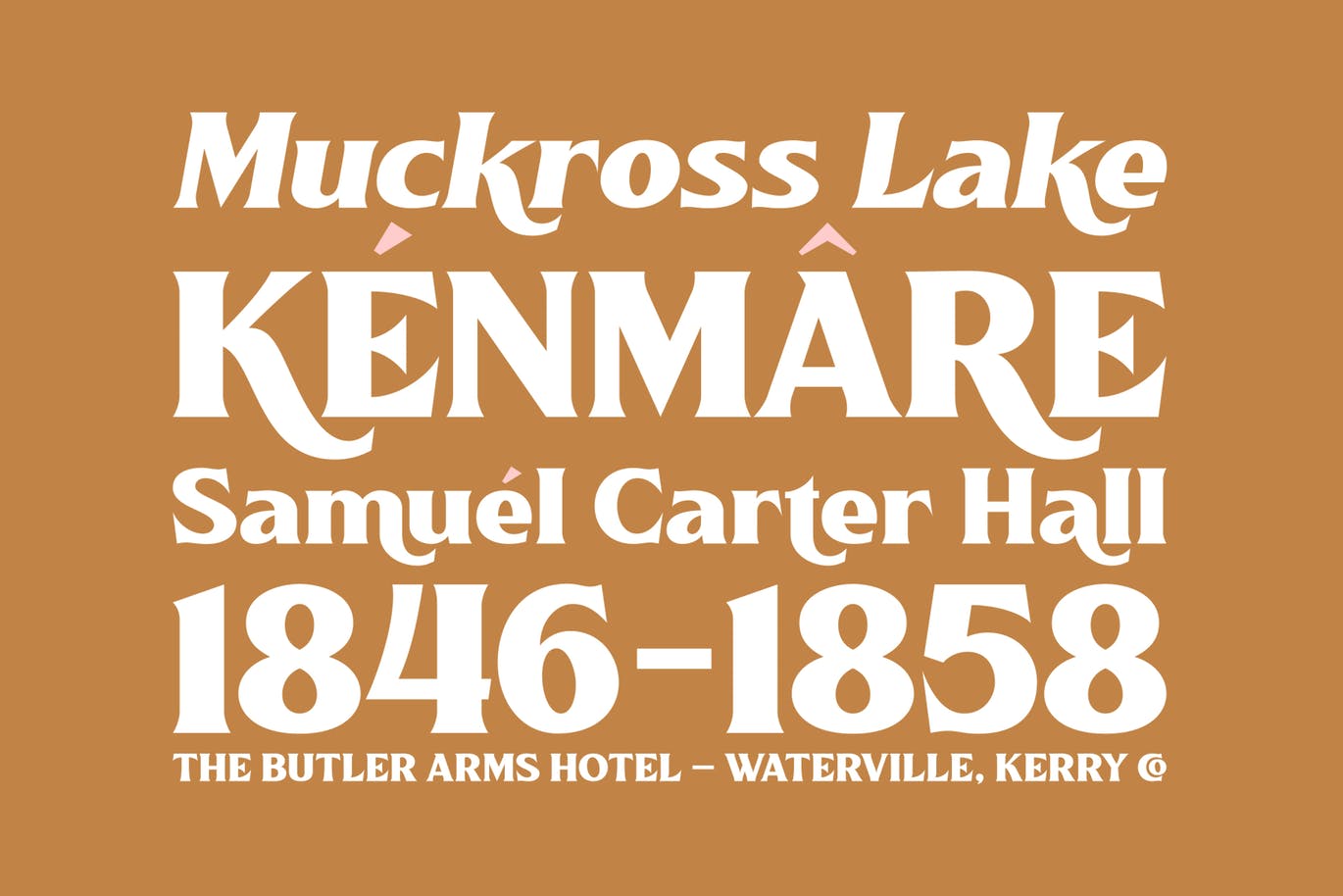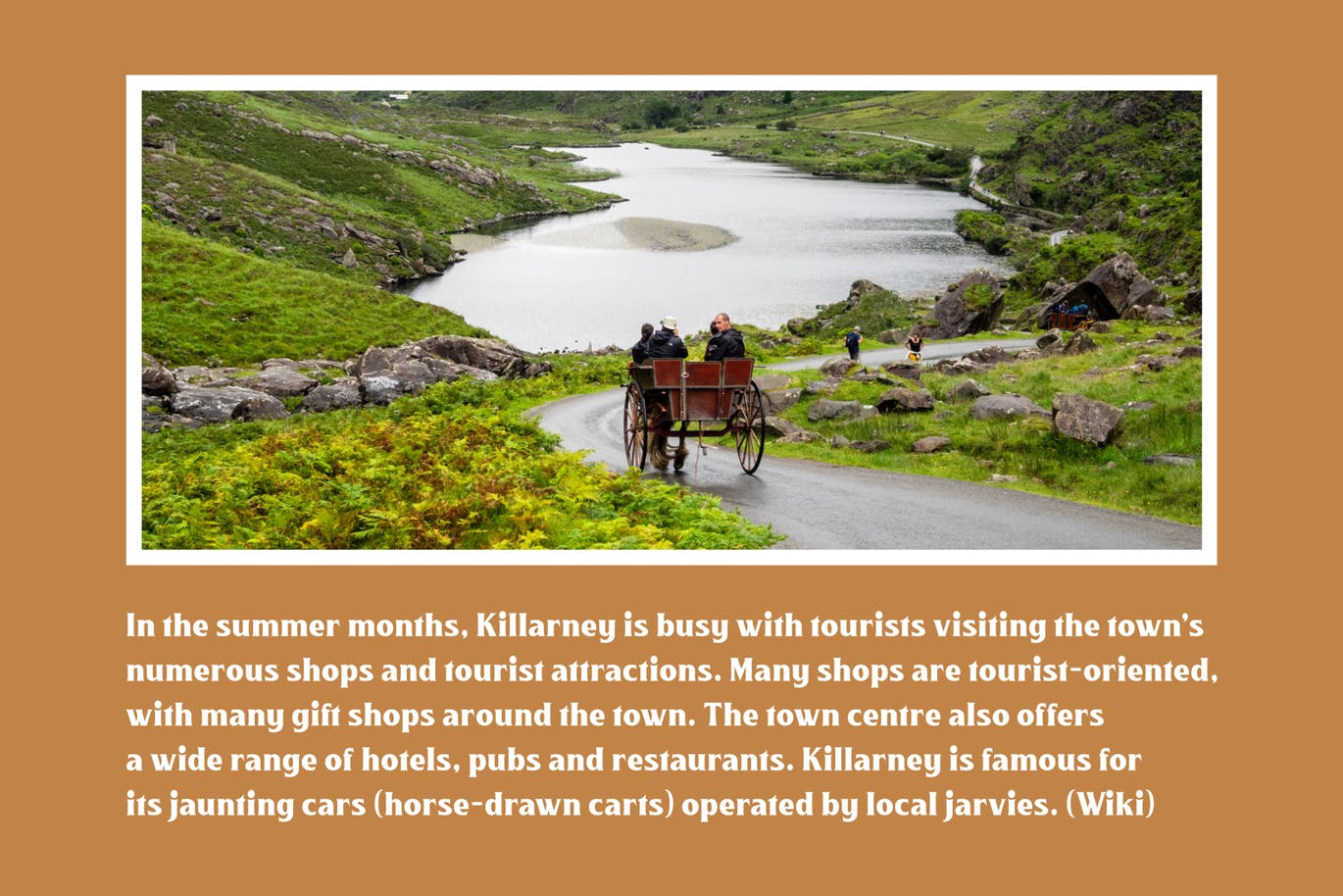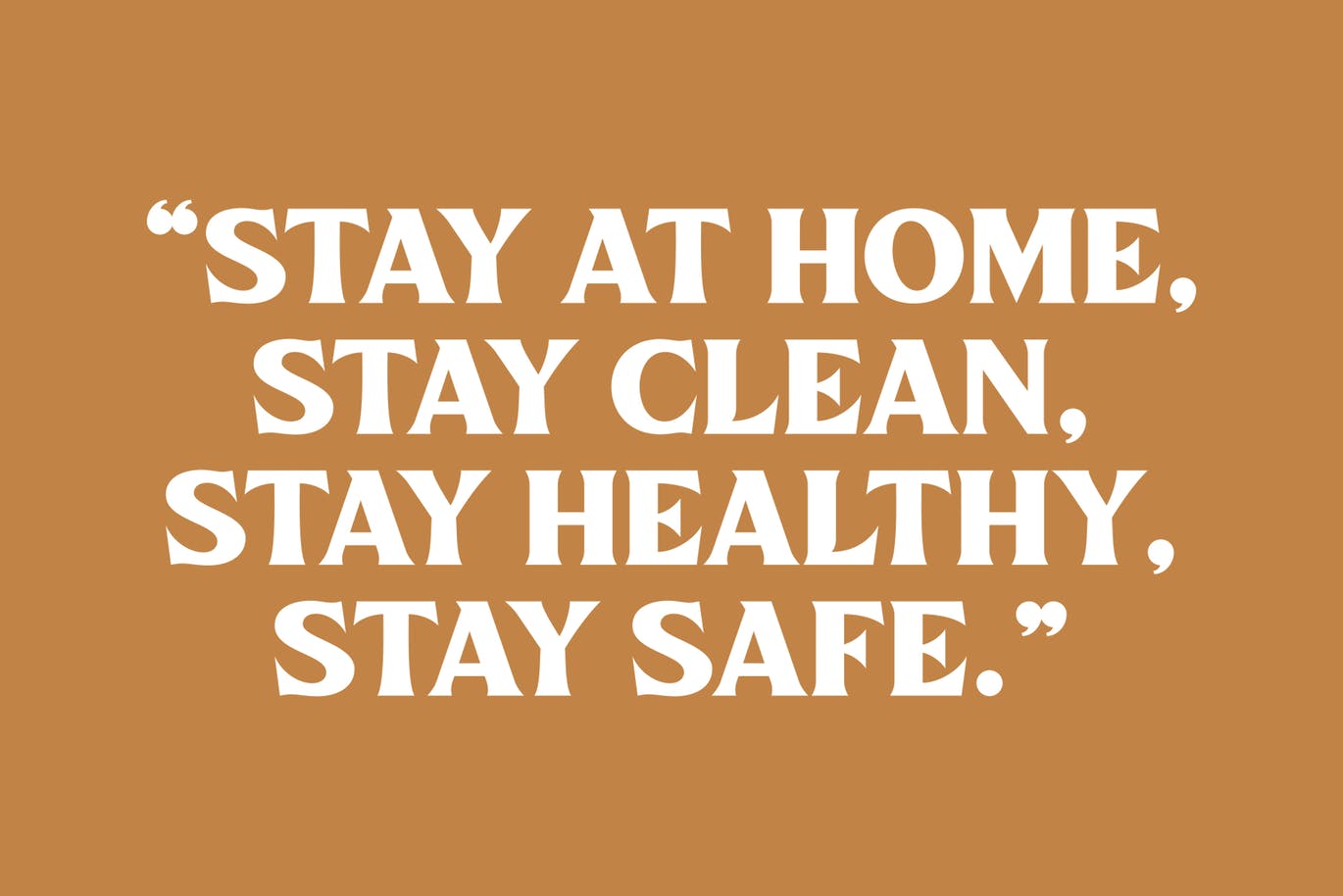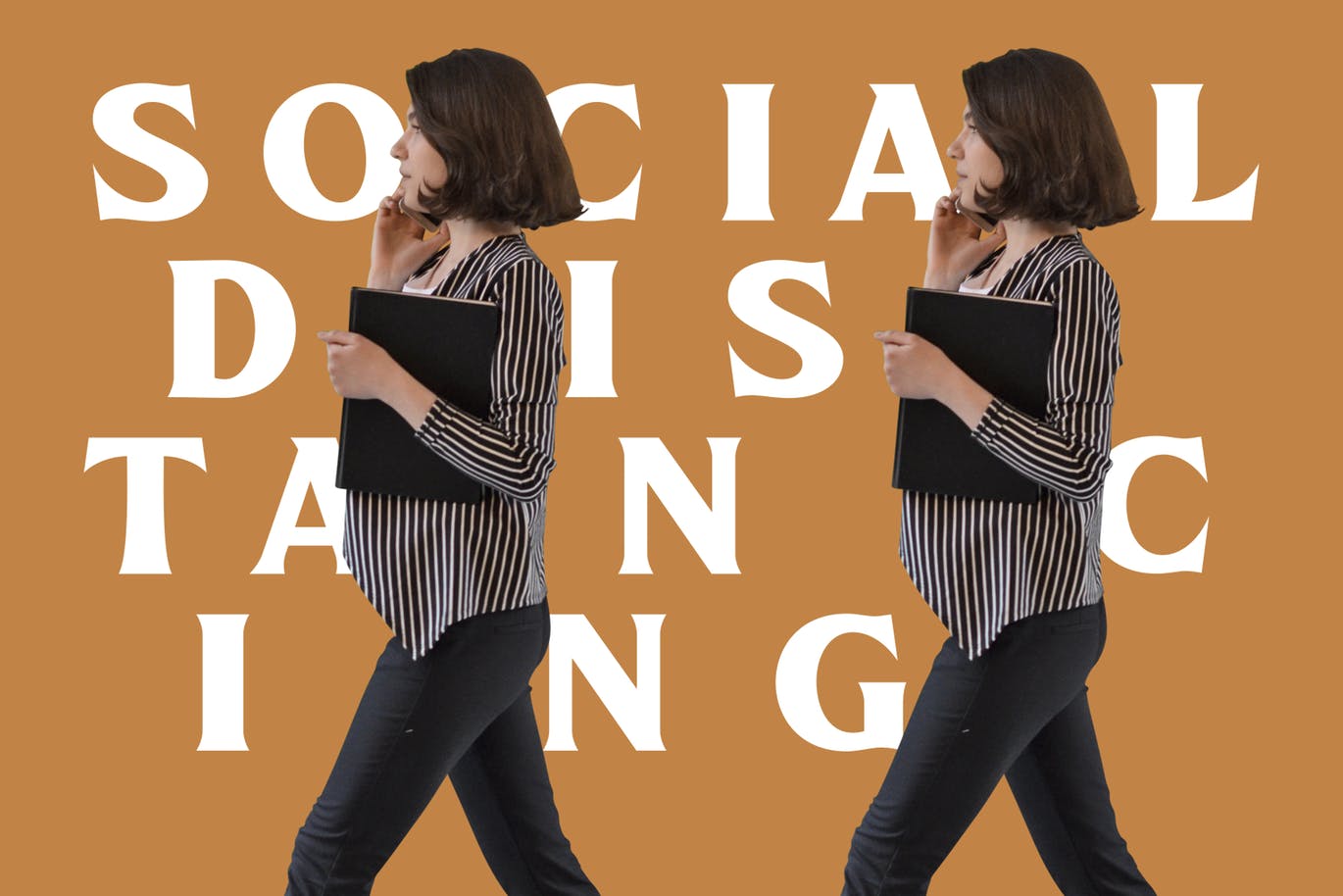
Killarney – font letterforms
Introducing our new font Killarney. A bold and heavy display font that inspired by the vintage/classic letterforms used in old-advertisements. Mouse-crafted with high attention to details; clean lines, sharp edges and tempting curves. Its square and blocky letterforms make Killarney a great for headlines and space killer. Available in slanted version too, gives you more options too play with. Suits best for title/headline, logo/logotype, packaging/label designs, etc.
Packed with 500+ glyphs, Killarney composed of slanted version, standard upper/lower case characters, numerals, punctuations, some multilingual letters, alternate characters, stylistic sets, ligatures, etc. This font is a must have item for your designing arsenal. Go get yours now while it’s hot. 😀